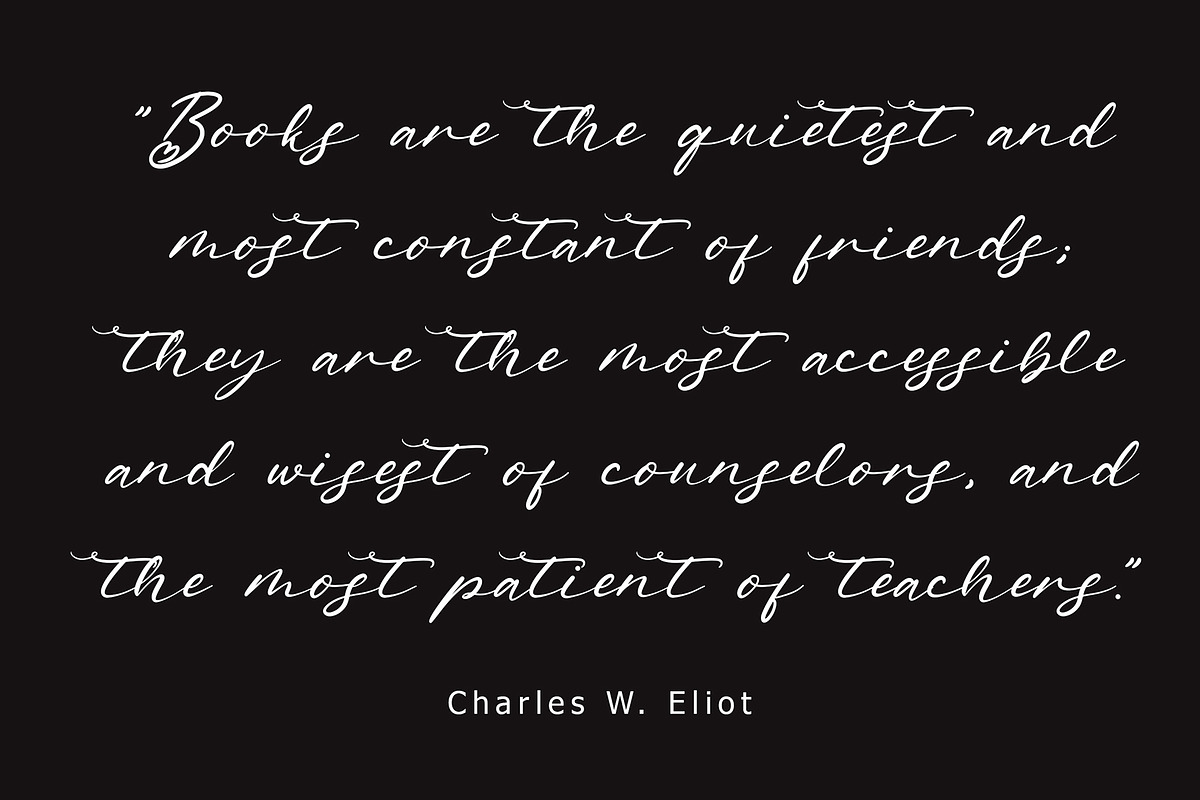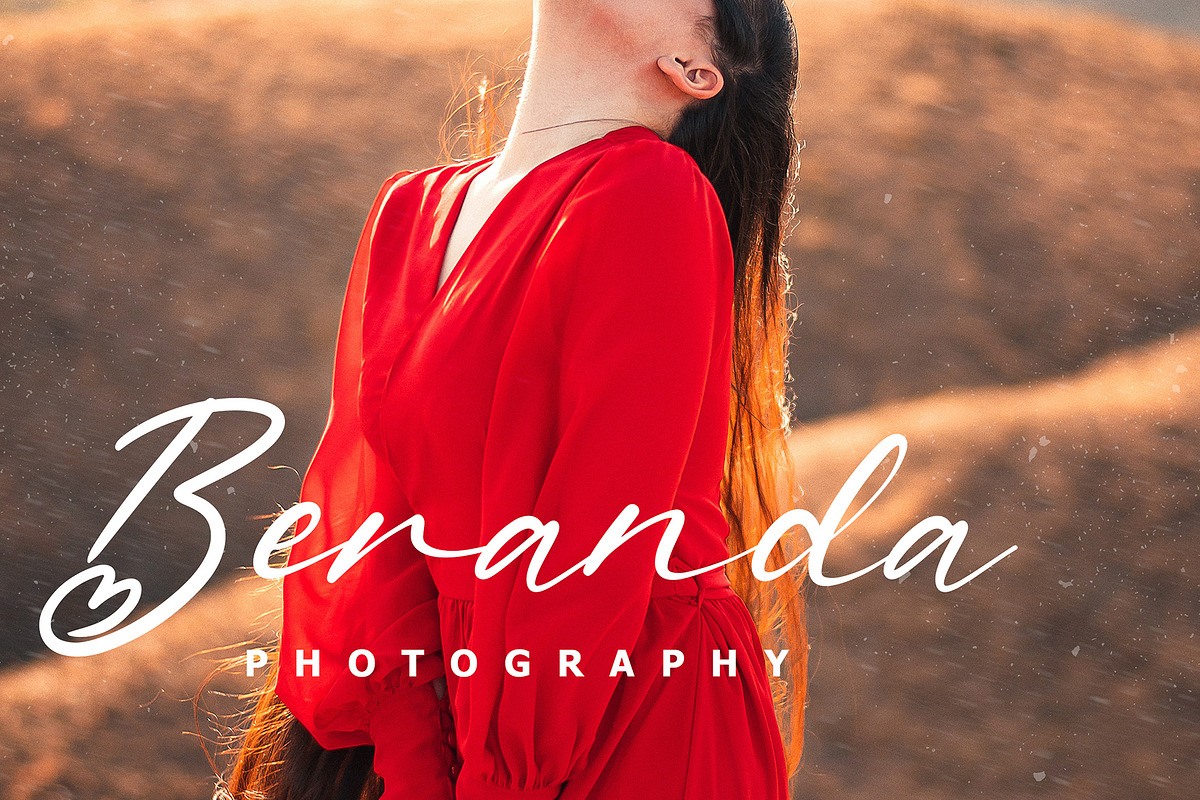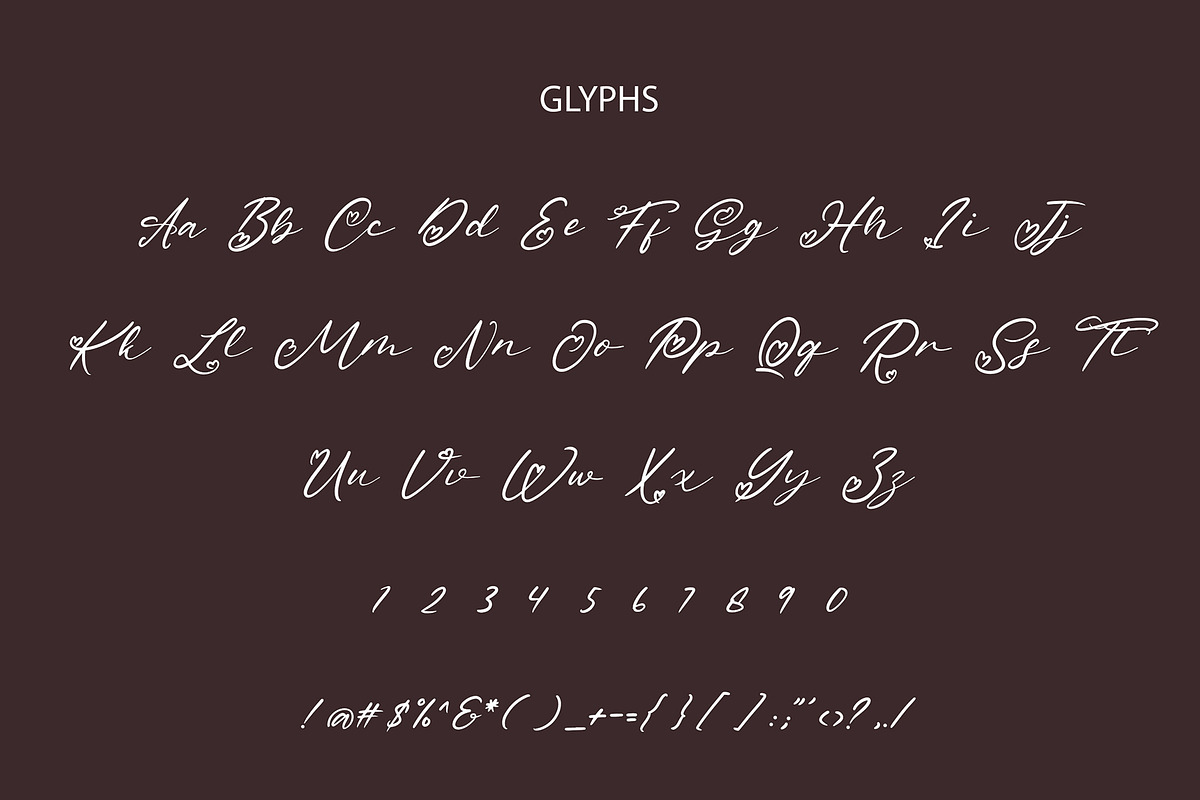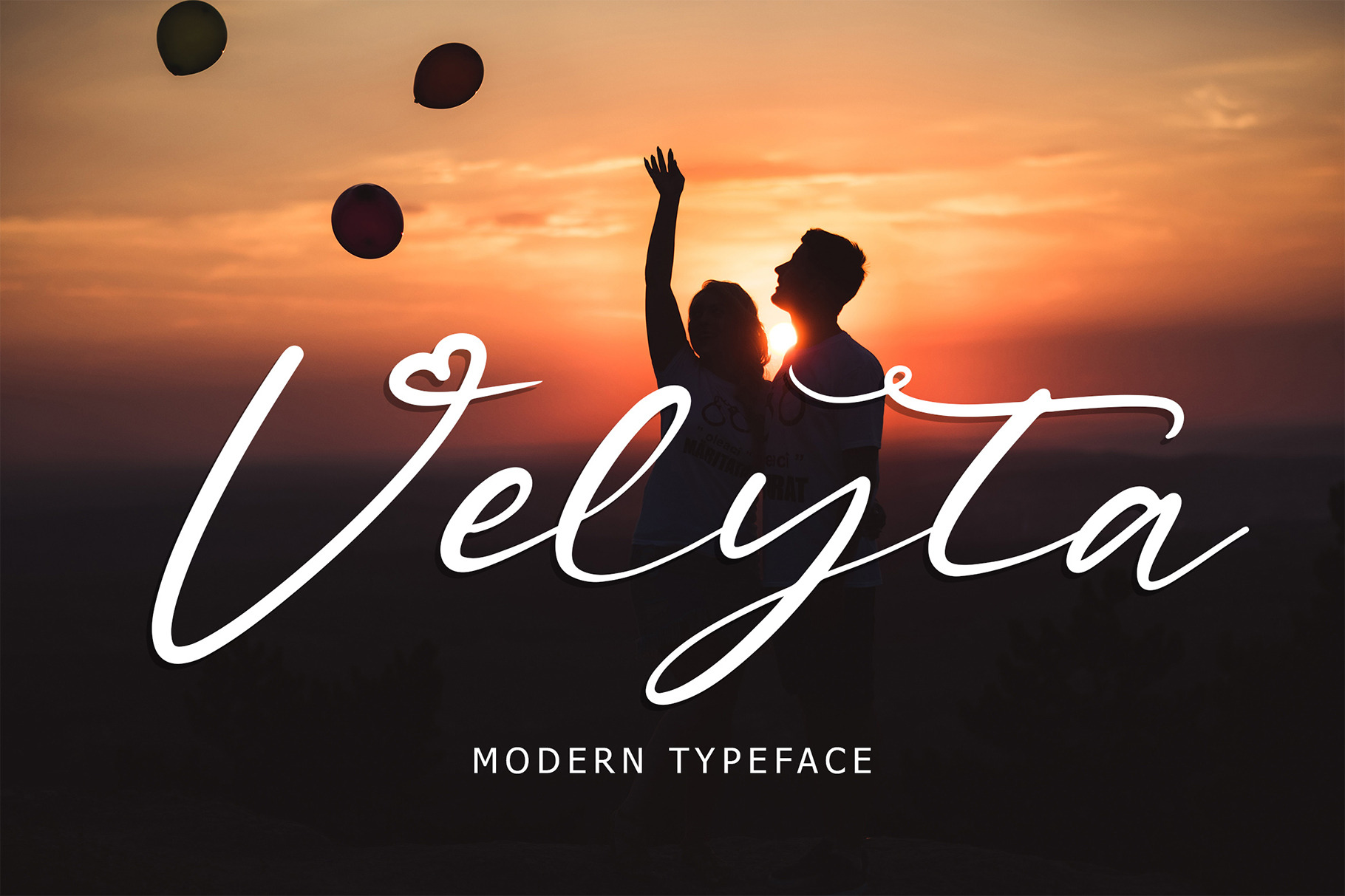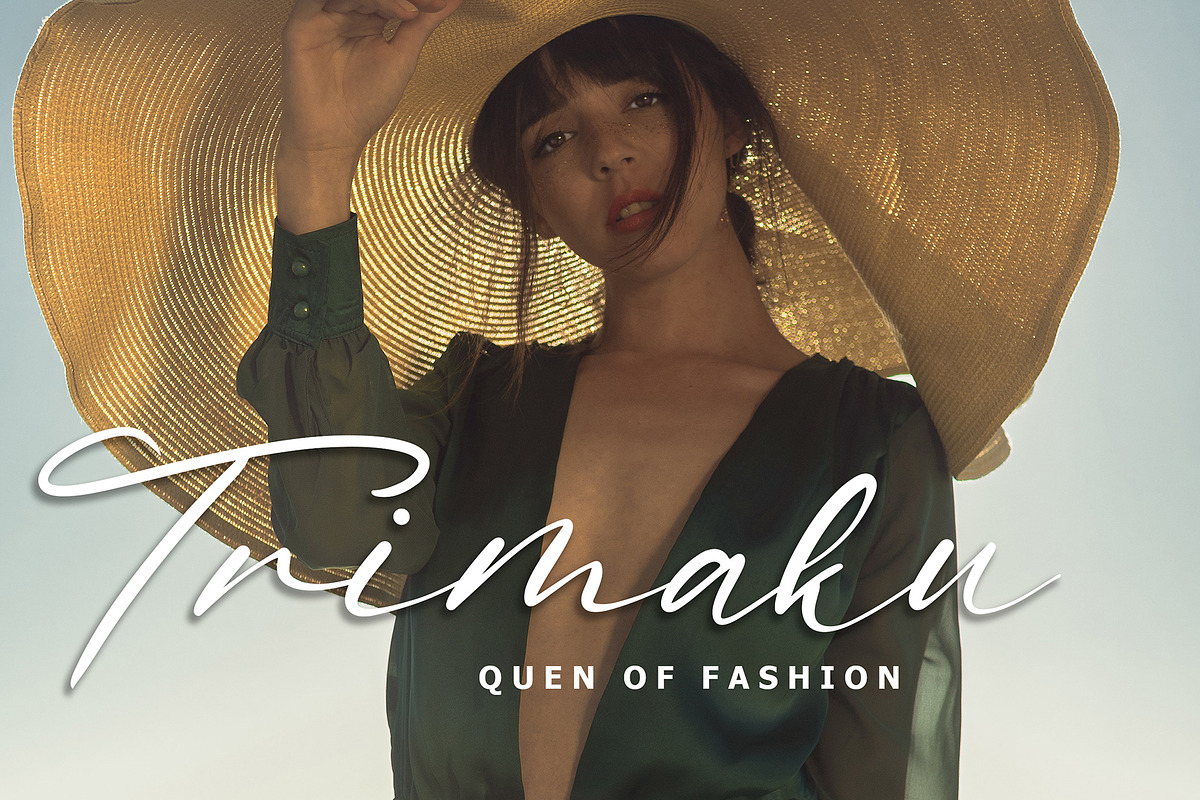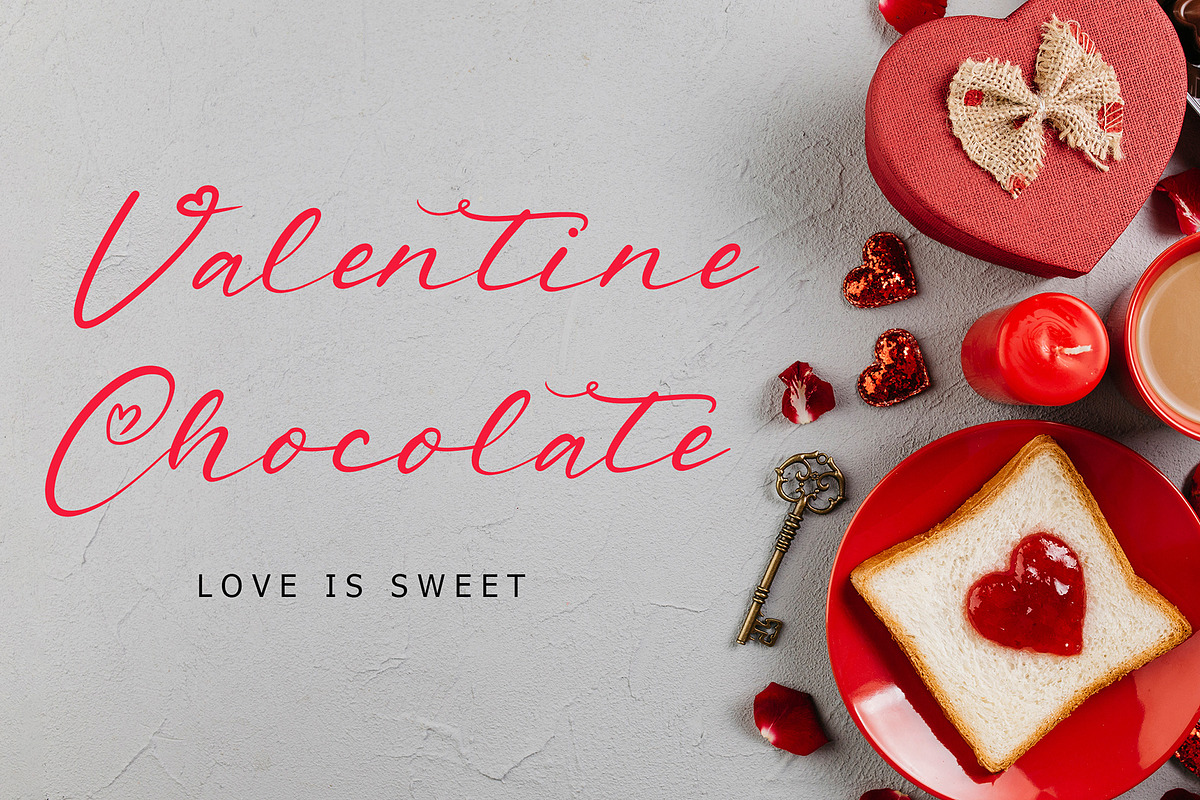
Velyta Modern Typeface
Velyta is an exciting script font with brush style. This beautiful script can make your text appear elegant, luxurious, and modern!
This font perfect for branding projects, logo, book cover design, tshirt designs, social media posts, advertisements, product packaging, product designs, label, watermark, invitation, stationery and any projects